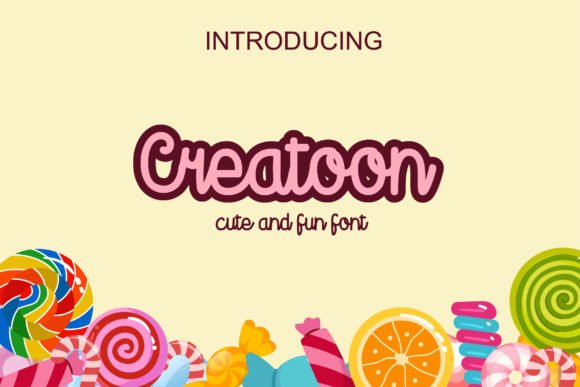
Have you ever been stuck on a design project, struggling to find the perfect font to convey the playful and lighthearted tone you’re aiming for? We’ve all been there – staring at a blank canvas, wondering which font will bring our creative vision to life. That’s where the Creatoon Font comes in – a charming and adorable font that adds a touch of whimsy to any design.
With its fun and quirky letters, the Creatoon Font is perfect for designers looking to add a playful twist to their work. Whether you’re creating a headline, logo, or poster, this font is sure to bring a smile to your audience’s faces. Its versatility makes it a valuable asset for designers, allowing them to inject personality and creativity into their projects.
Creatoon Font Key Features
- Font Family: A unique, hand-drawn font with a playful and creative touch.
- Unique Characteristics: Features a mix of bold and delicate lines, creating a visually appealing contrast that adds to its creative charm.
Designer Review: Creatoon Font
I recently had the chance to work with the Creatoon Font, and I must say it’s an interesting addition to any designer’s toolkit. Here’s my honest take on what works and what doesn’t.
- Creatoon Font is highly customizable, offering a wide range of font styles, sizes, and colors that can be easily applied to various design elements.
- The font is particularly well-suited for playful, whimsical designs, such as children’s books, animated movies, or even advertisements.
- The Creatoon Font can feel a bit overwhelming when used in large quantities, as its playful nature can quickly become too much to handle.
- Some designers may find the font’s lack of sophistication or elegance limiting in more serious or formal designs.
- Additionally, the font’s customizability can also lead to inconsistencies in design, if not managed carefully.
Overall, the Creatoon Font is a great addition to any designer’s toolkit, but it’s essential to use it judiciously and consider the context in which it’s being used. When used correctly, it can add a touch of magic to any design. When overused, it can become overwhelming. So, use it with caution and creativity!
Practical Application Guide for Creatoon Font
Tips for Getting the Most Out of it
To get the most out of the Creatoon font, experiment with different font sizes, colors, and effects. Use it in combination with other creative elements, such as graphics, illustrations, or textures, to add depth and interest to your design. Also, don’t be afraid to push the font’s limits and try out unconventional uses, such as using it as a background element or a texture.
The Creatoon font is ideal for creative projects, such as:
- Graphic design and visual identity
- Illustrations and cartoons
- Text overlays and graphics
- Logo design and branding
- Party and event invitations
Q: Can I customize the Creatoon Font?
Yes, the Creatoon Font is a highly customizable font that supports OpenType features such as ligatures, swashes, and stylistic sets. You can access these features using the font’s glyph palette or by using design software that supports OpenType features, such as Adobe Creative Cloud or Figma.